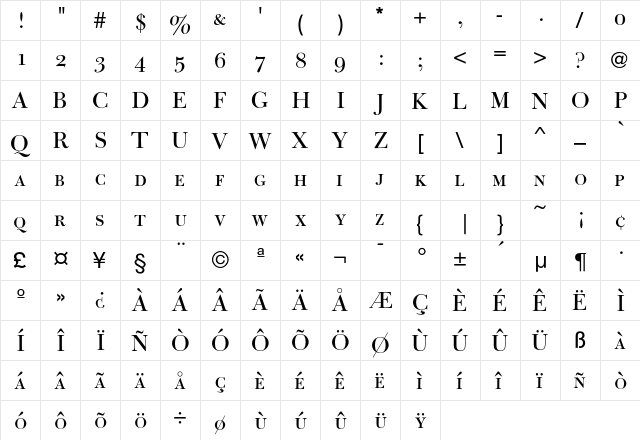
Bulmer Alternates
Design Context for Bulmer Typeface
Bulmer is a composed and adaptable typeface that performs quietly and consistently across a wide range of design contexts.